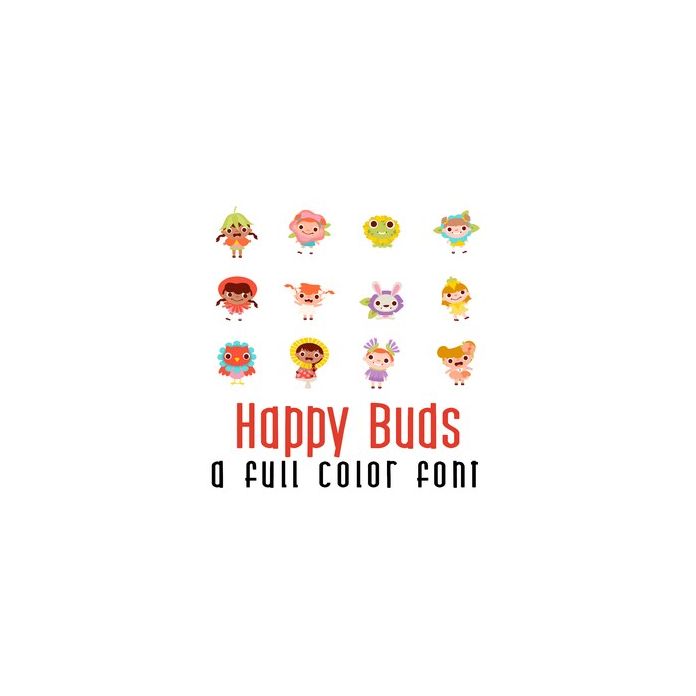
This adorable full-color doodlebat font features 26 adorable kids dressed in florals. Perfect for cards, crafts, gifts, decor, scrapbook pages, planner stickers, and more!